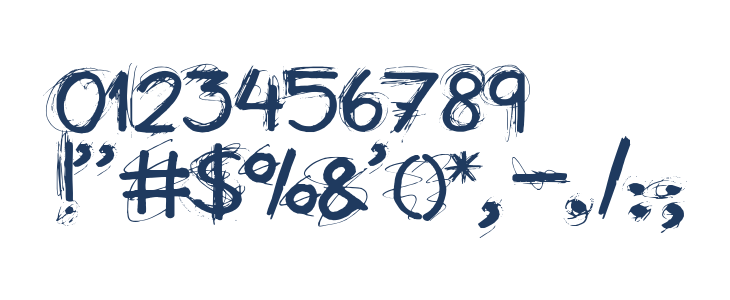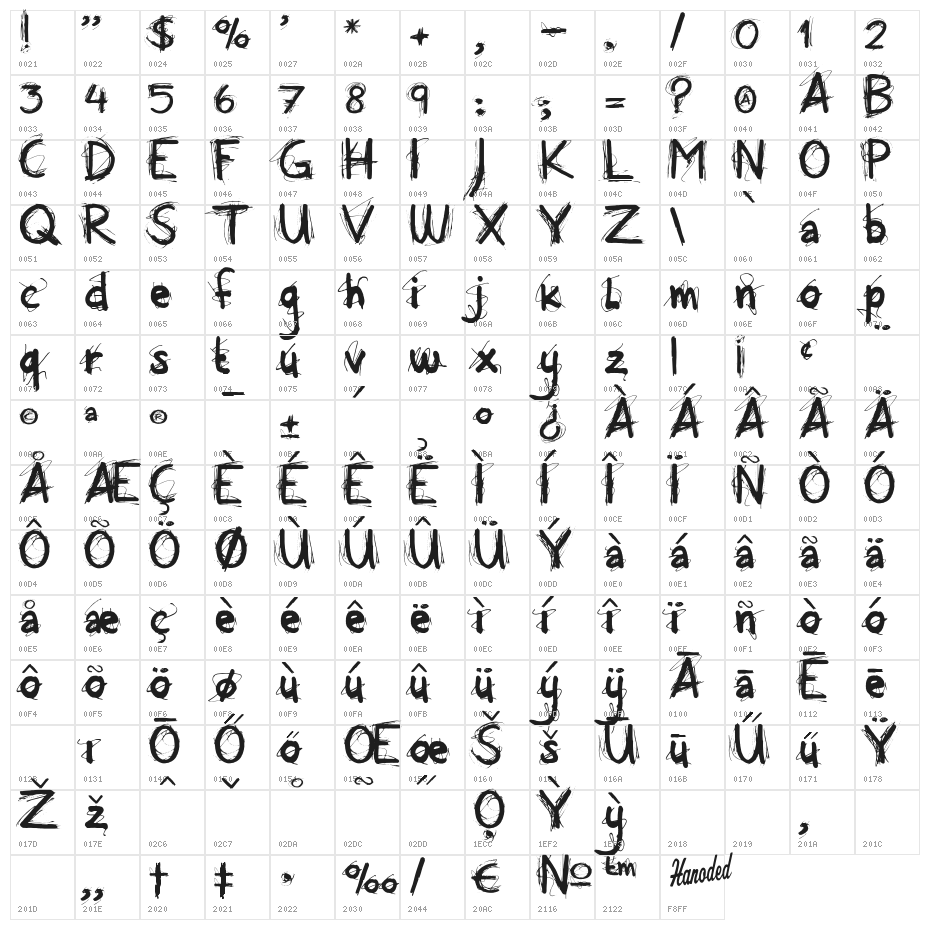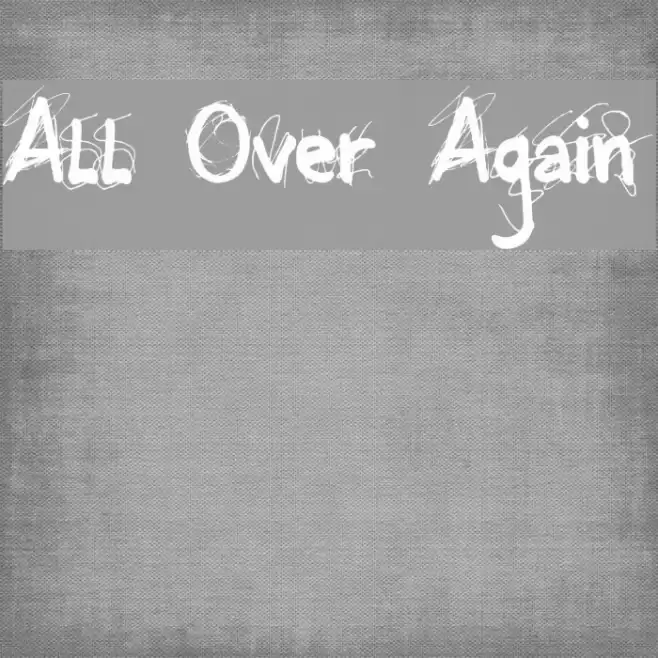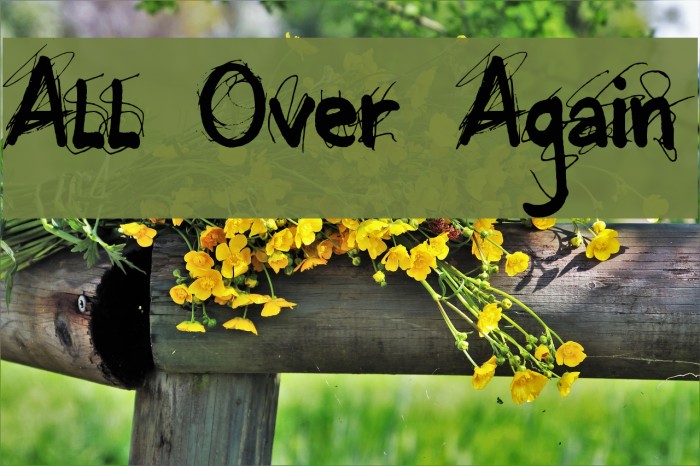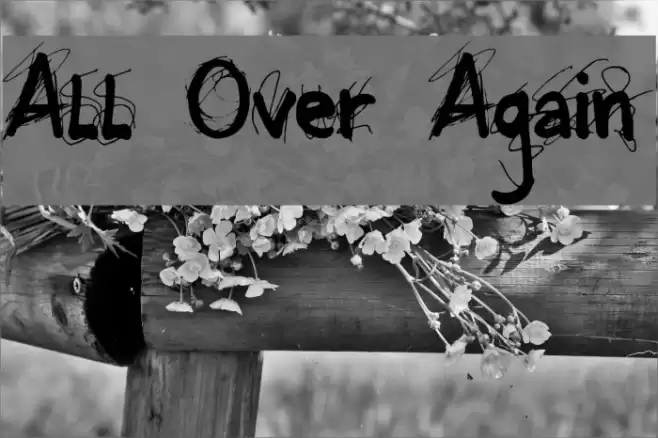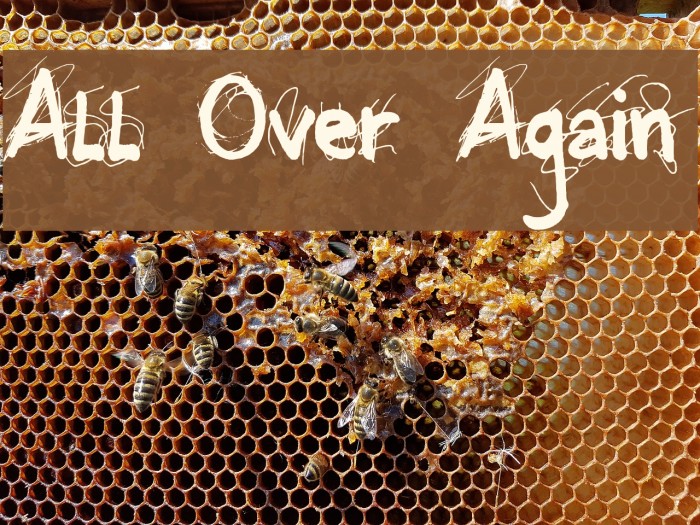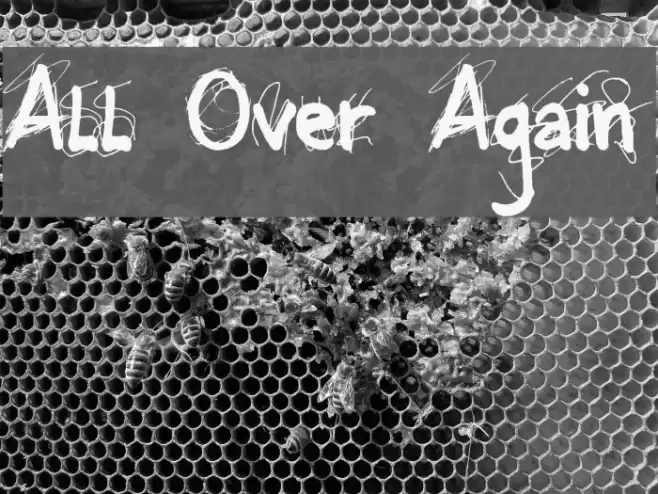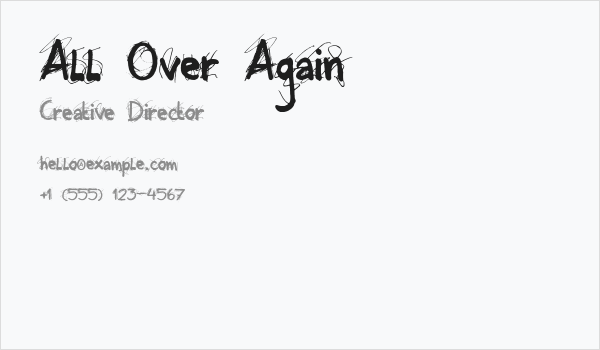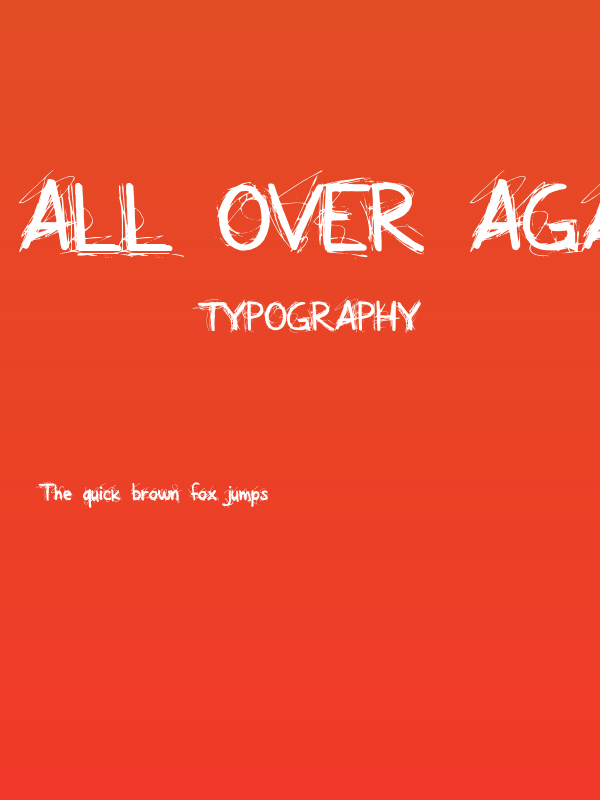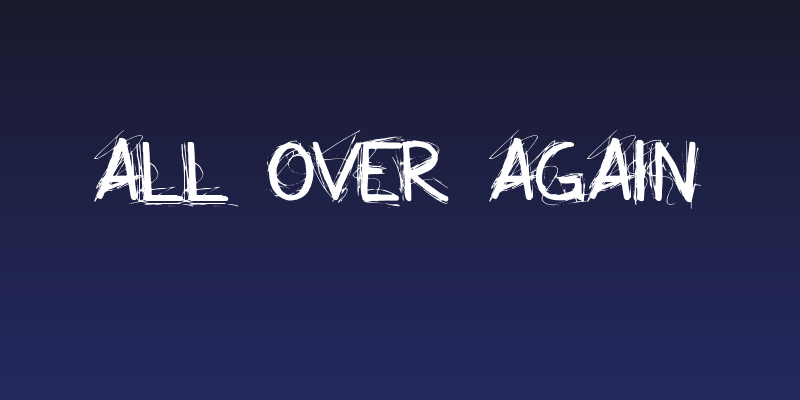
All Over Again Font
All Over Again Description
This font features a chaotic and energetic style, characterized by its rough, hand-drawn appearance. The letters are irregular and dynamic, with strokes that vary in thickness, giving it a raw and expressive feel. The uppercase and lowercase letters maintain a consistent level of unpredictability, while the numbers and special characters follow suit with their own unique flair. The overall design is reminiscent of graffiti or street art, making it stand out with its bold and unconventional look.
| Proposed Projects | Ideal for edgy branding, album covers, streetwear designs, and urban-themed posters. |